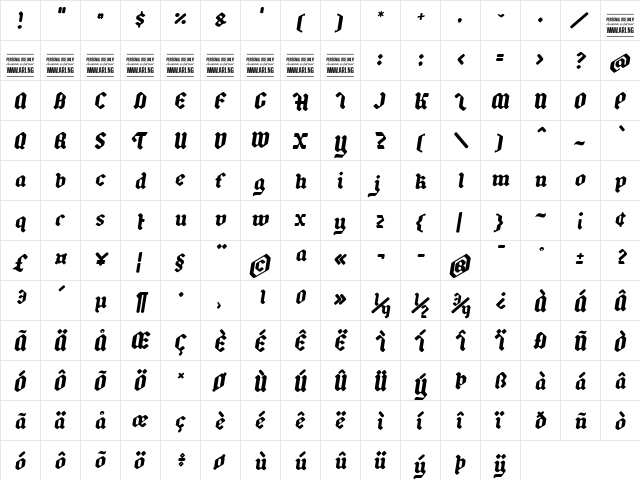
Backyard Black PERSONAL Italic
Design Context for Backyard Black PERSONAL Typeface
Backyard Black PERSONAL is a composed and adaptable typeface that performs quietly and consistently across a wide range of design contexts. The dynamic lean of this cut emphasises speed and emphasis in any layout.
Pro Tip: Use Backyard Black PERSONAL for emphasis, pull quotes, and subheadings where its slanted energy can add rhythm to the layout.